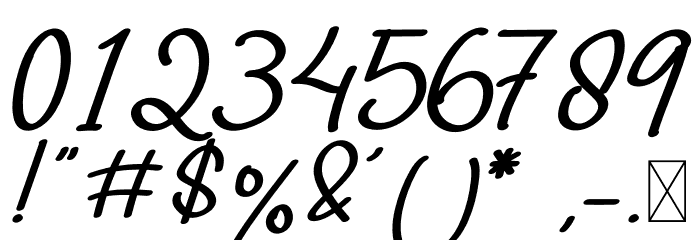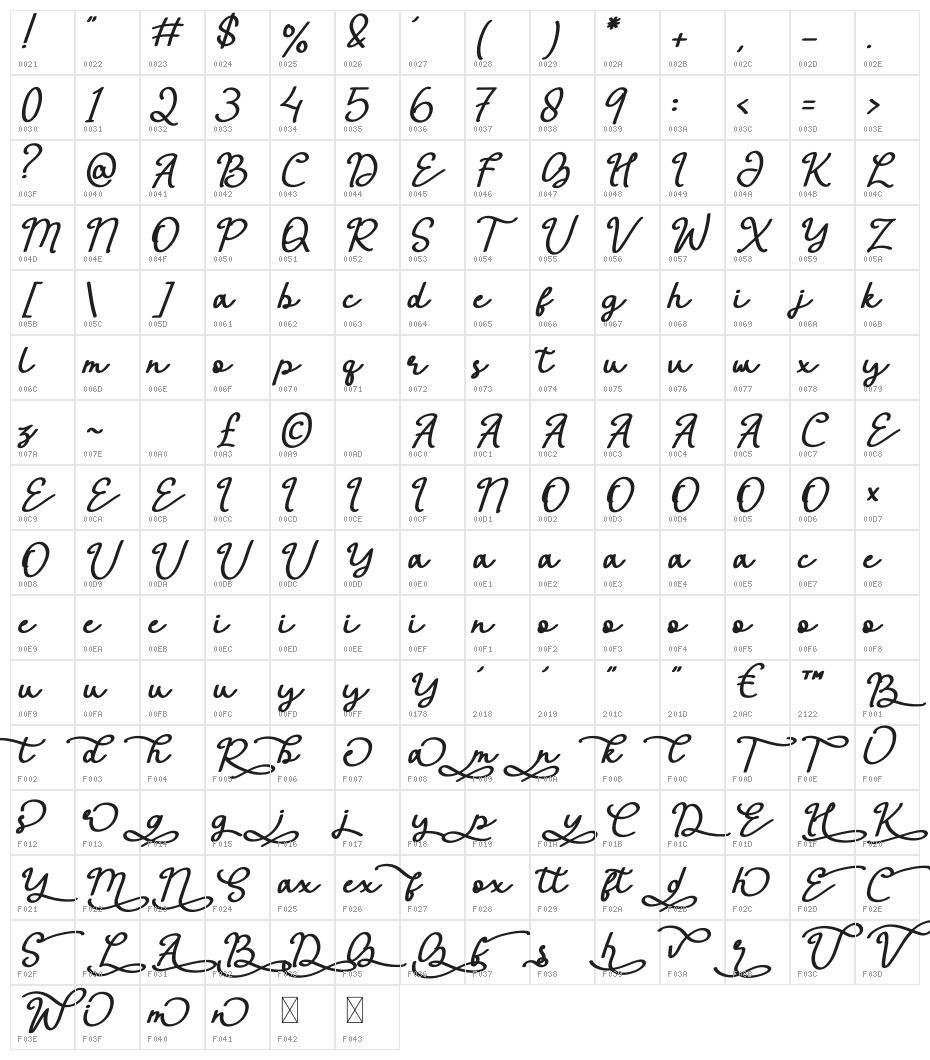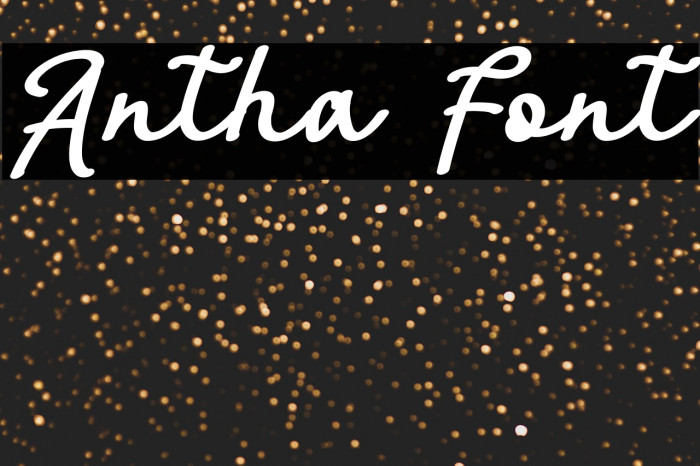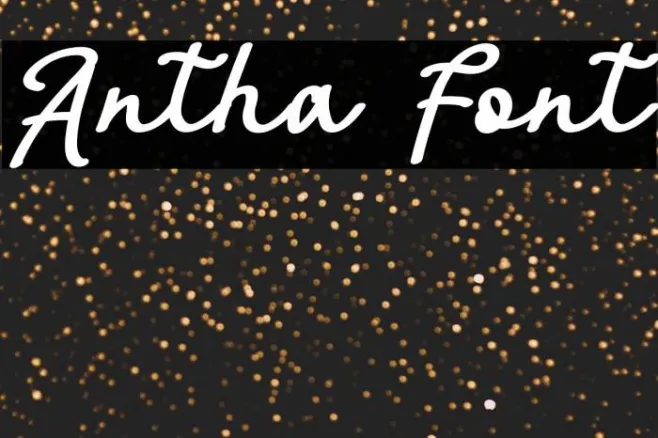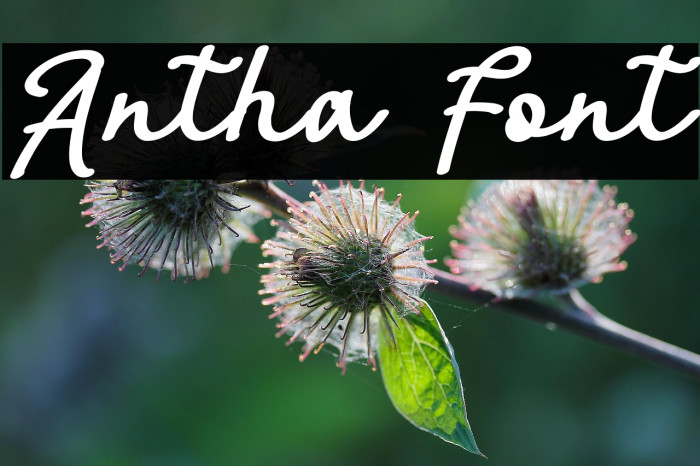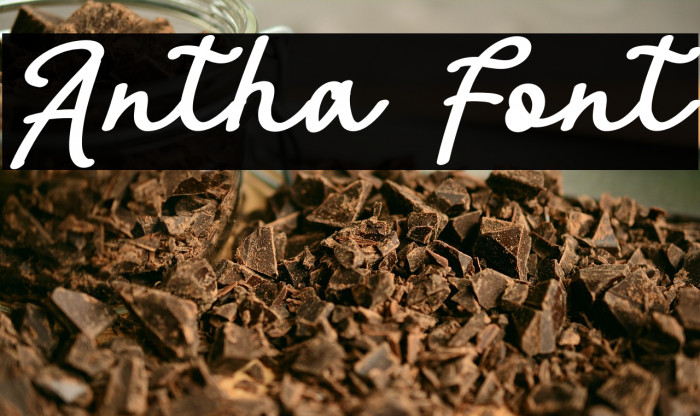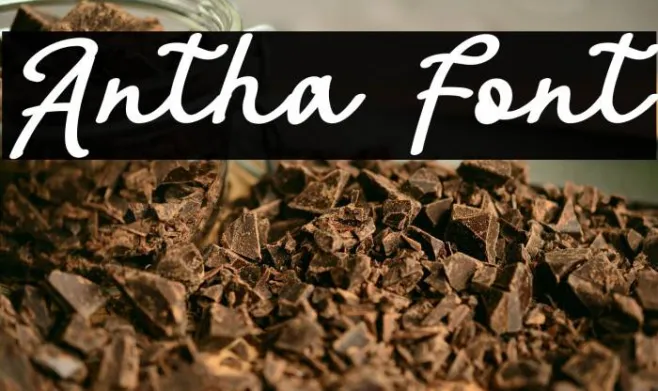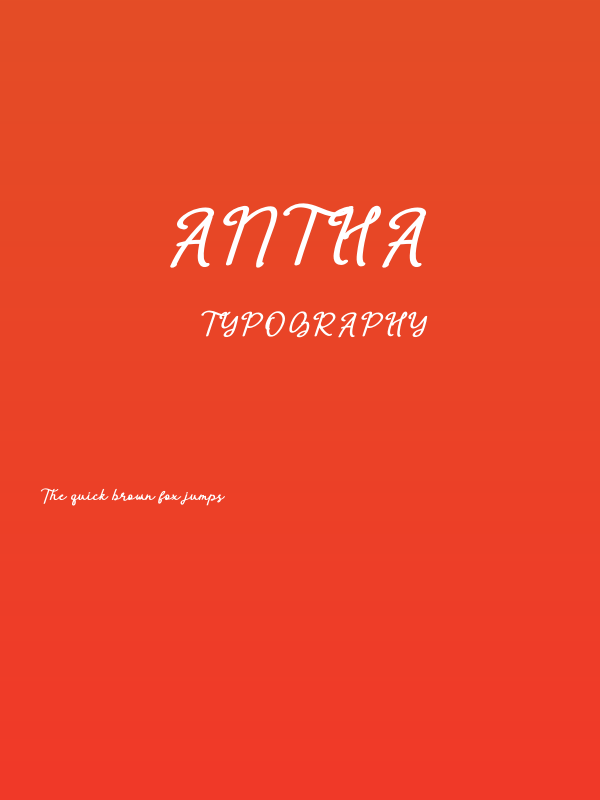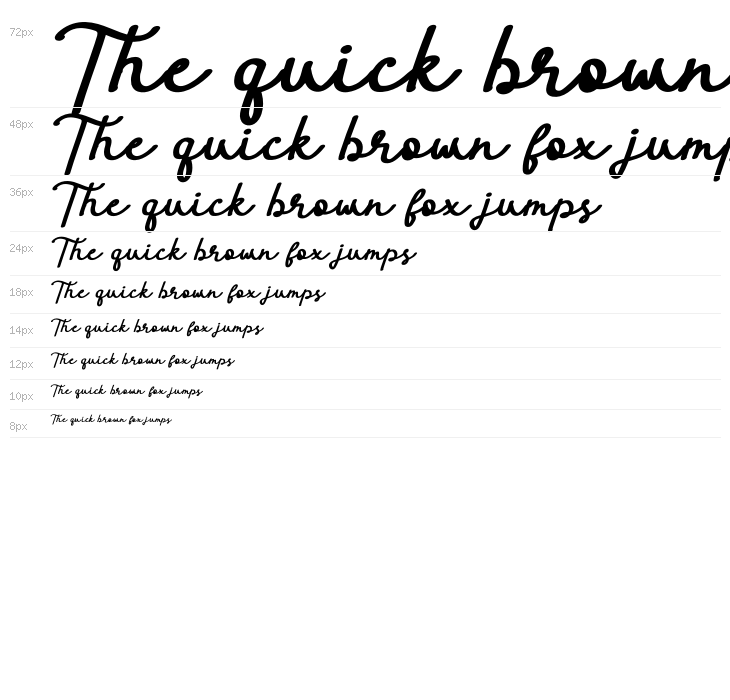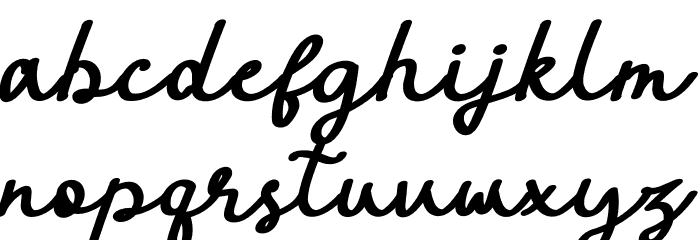
Antha Font
Antha Description
This font features a flowing, cursive style with a handwritten appearance. The uppercase letters are elegantly connected, while the lowercase letters maintain a consistent slant and fluidity. The numerals are distinct yet harmonize with the overall script style. Special characters are designed to complement the cursive flow, adding a touch of sophistication. The strokes are smooth and rounded, providing a sense of movement and grace. This font is ideal for projects that require a personal, artistic touch, such as invitations, greeting cards, or branding materials that aim to convey elegance and creativity.
| Proposed Projects | Ideal for invitations, greeting cards, artistic branding, and creative projects. |